Looking to make your numbers stand out? Our creative font collection for number typography is perfect for designers who want bold, stylish, and eye-catching numerical fonts. Whether you’re working on price tags, infographics, countdowns, data visualization, or charts, these number fonts give your designs a unique flair.
Why Creative Number Fonts Matter in Design
Using creative fonts for numbers can transform ordinary data into visually engaging elements. Numbers often carry essential information, and when paired with the right typography, they can enhance readability while adding personality and style.
Some key applications include:
Price tags and product labels
Infographics and charts
Countdown timers and event promotions
Data highlights in presentations or reports
By selecting creative number fonts, designers can create a cohesive and professional look for both digital and print projects. These fonts are versatile, combining legibility with aesthetic appeal to ensure your numbers grab attention without compromising clarity.
Top Picks: Creative Fonts for Numerical Typography
Our curated collection includes unique and free fonts for numbers, each designed to help your numerical content shine. From bold and modern styles to elegant, decorative scripts, there’s a typeface for every project. Compatible with Windows and Mac, these fonts are ready to download for personal and commercial use.
Enhance your design projects with creative number fonts and make your infographics, dashboards, and price displays more compelling. Using the right numerical typography, you can instantly elevate your brand visuals and ensure your data captures attention.
1. Klinic Slab
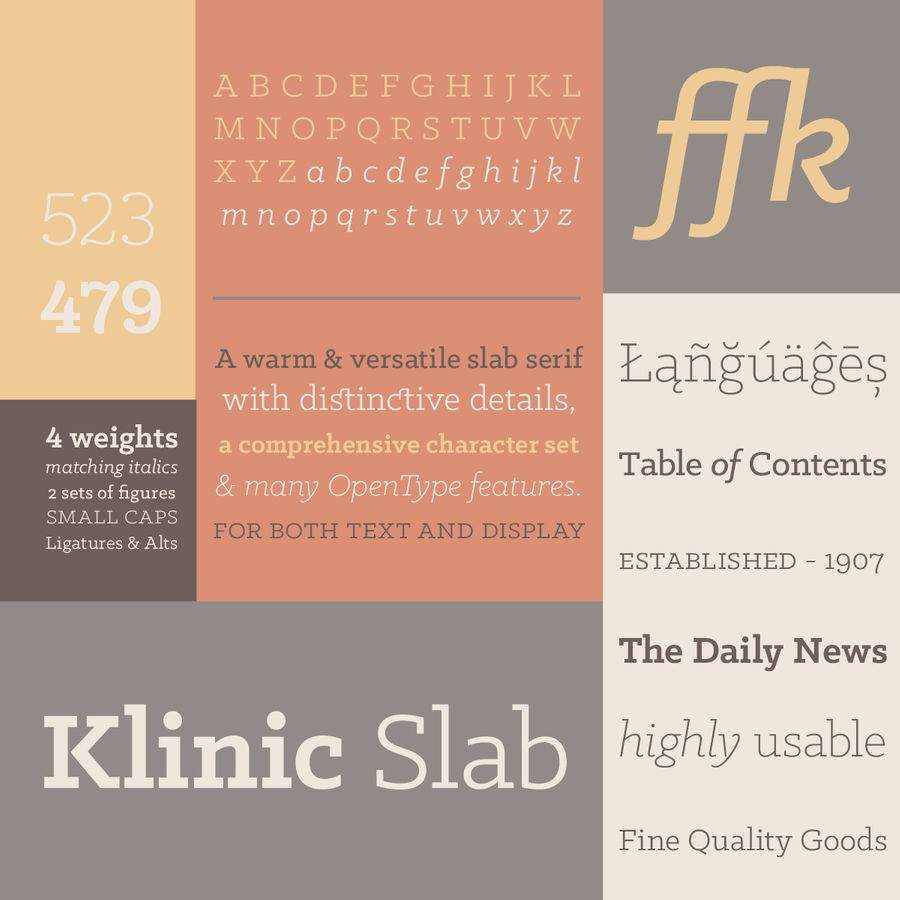
2. Fulbo
3. Misto
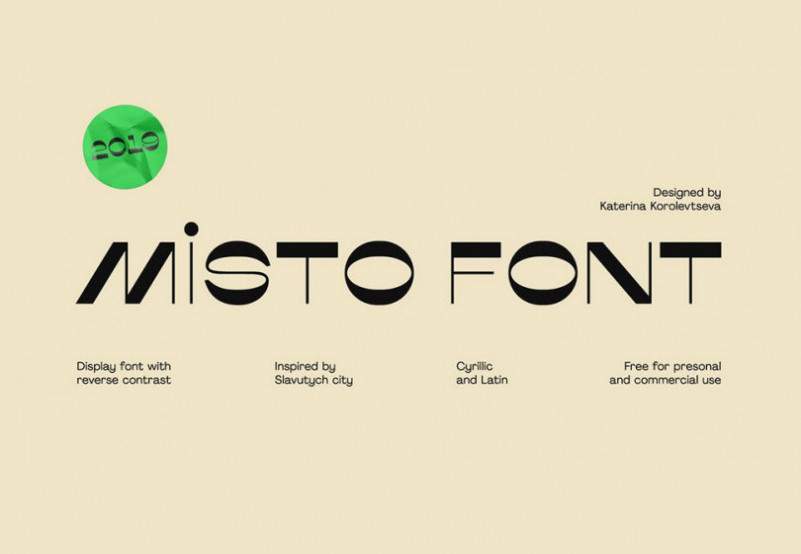
4. Chappa
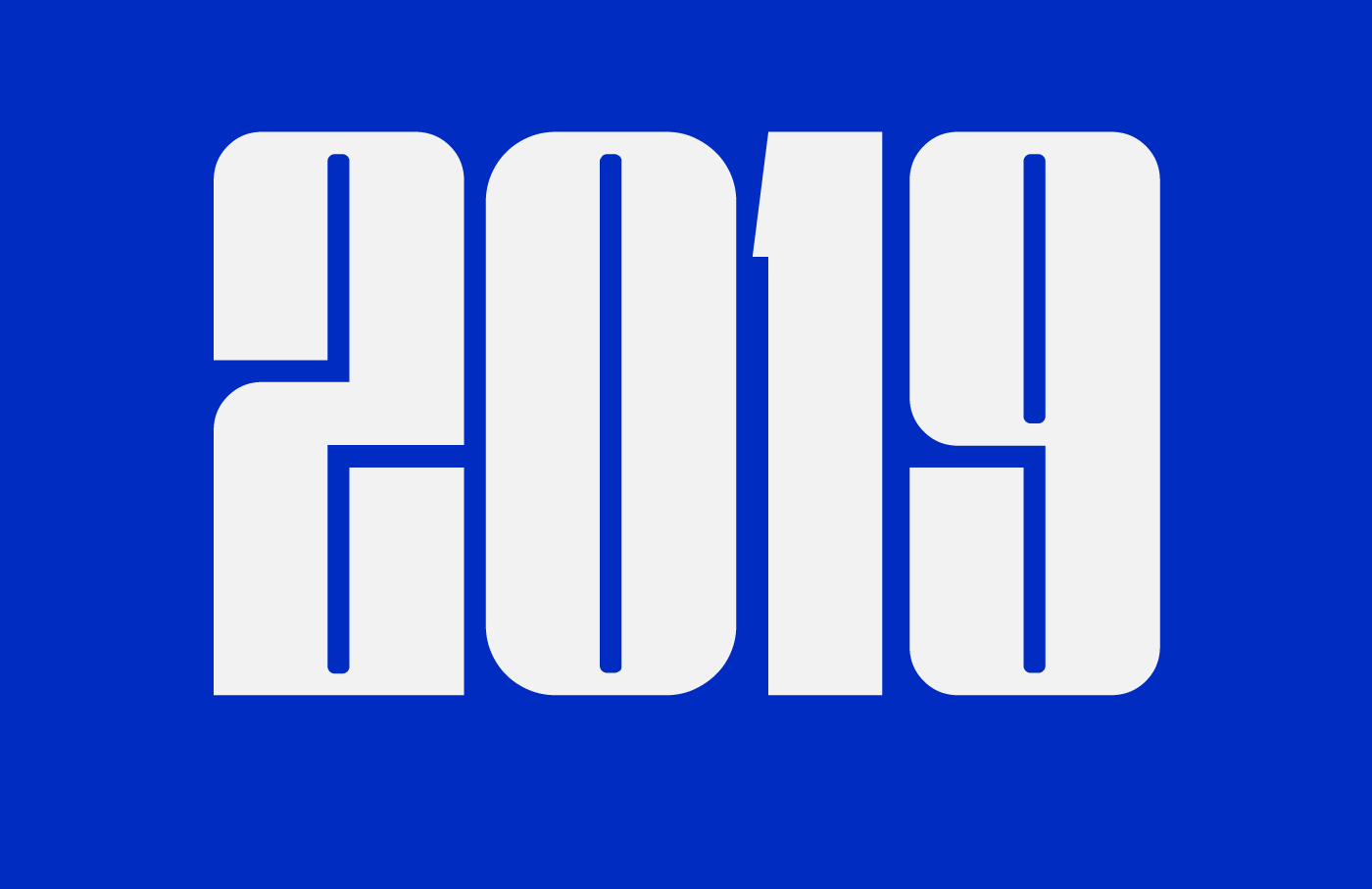
5. Borough Grotesk
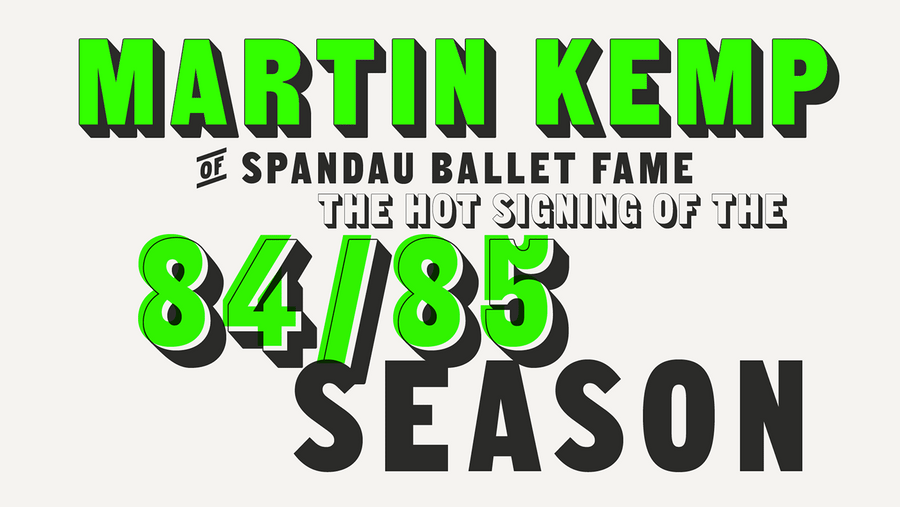
6. Lazar 1389
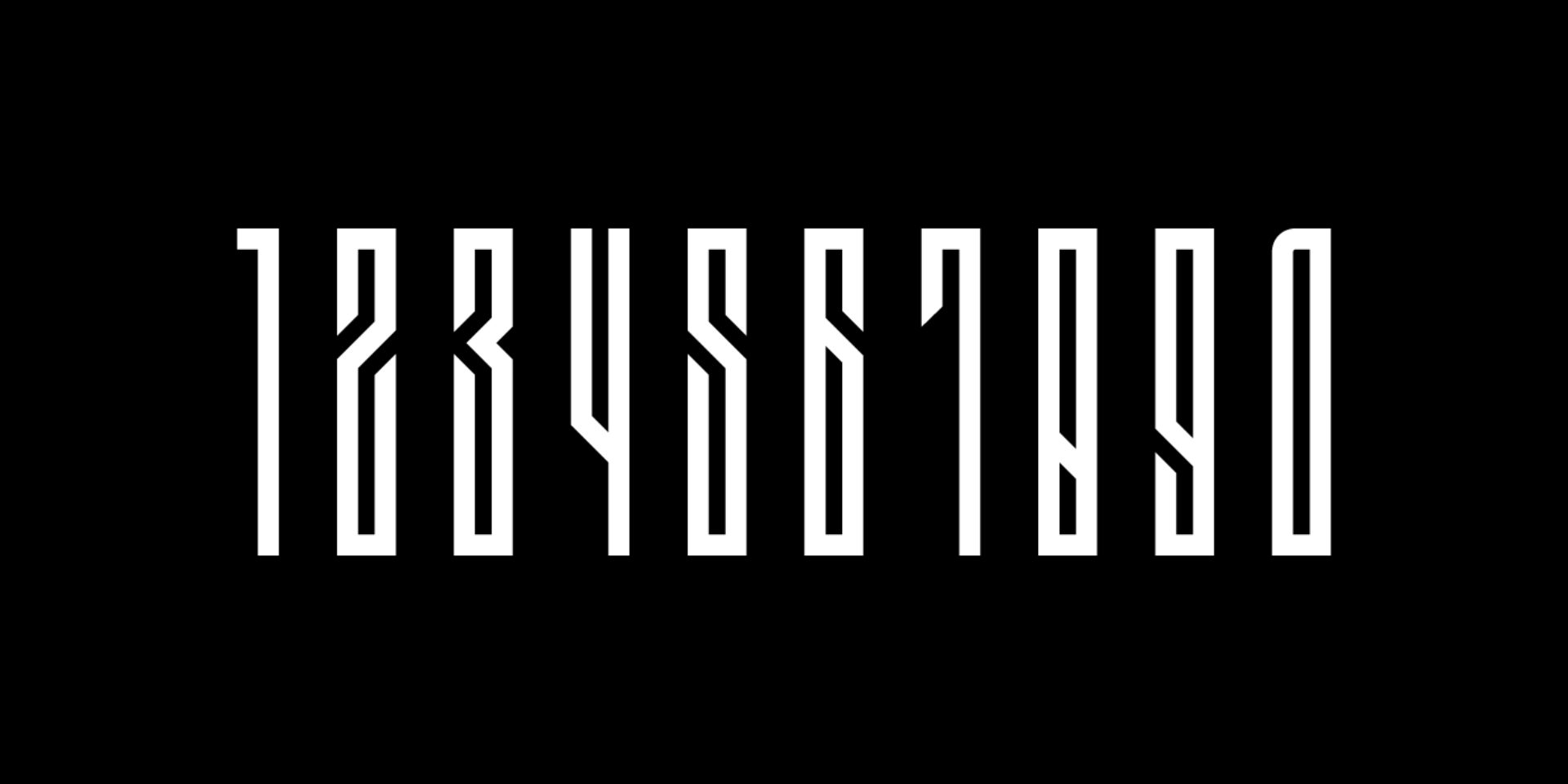
7. College Elegant
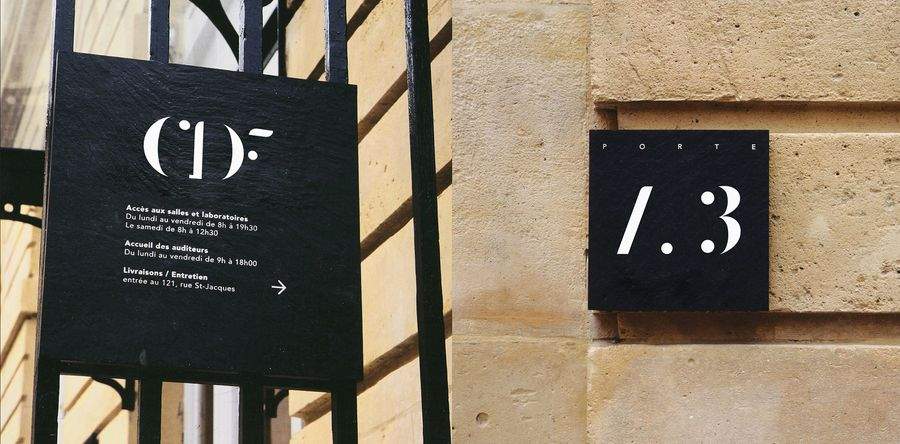
8. Technique Sans Serif
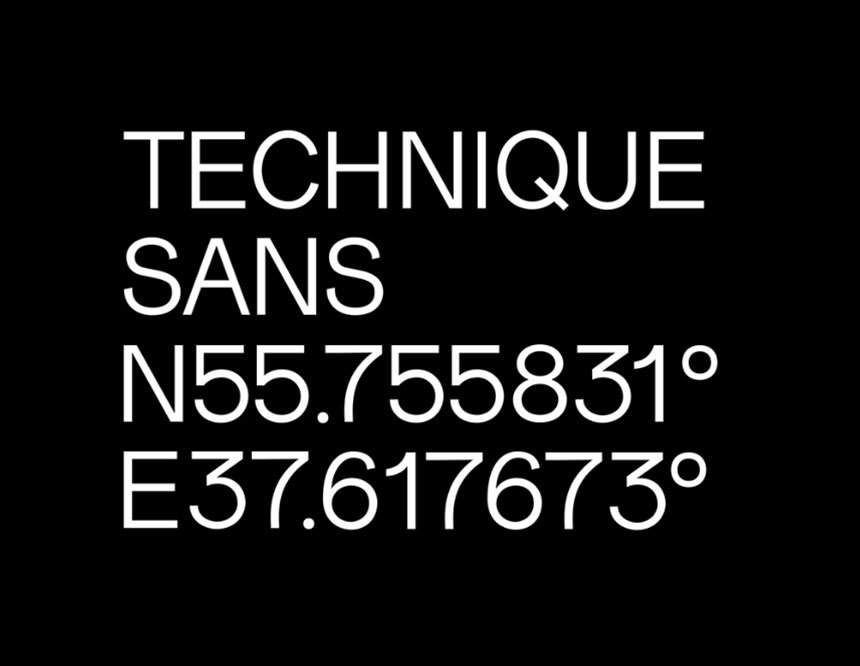
9. Herbert Regular
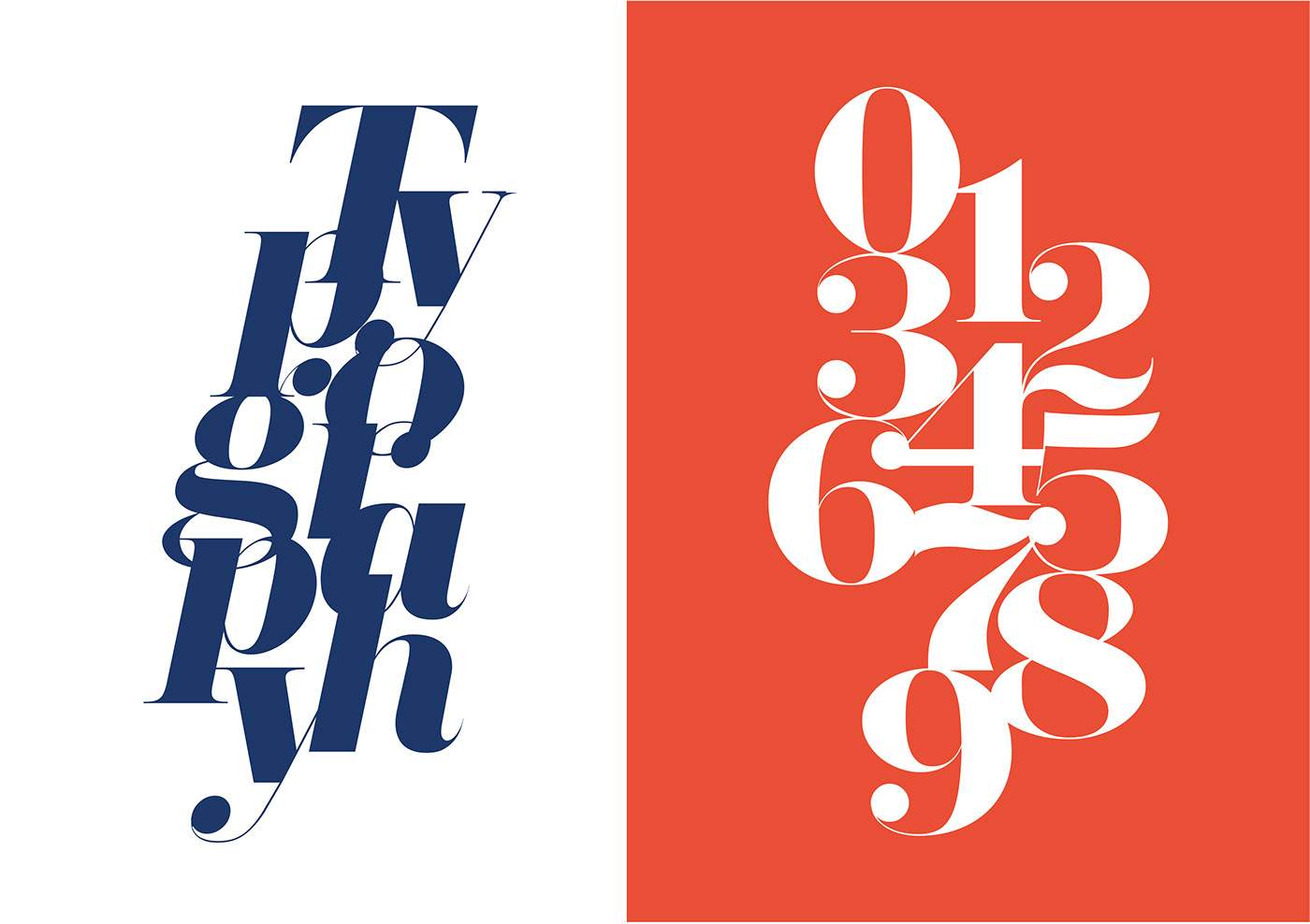
10. Didone Room Numbers Display
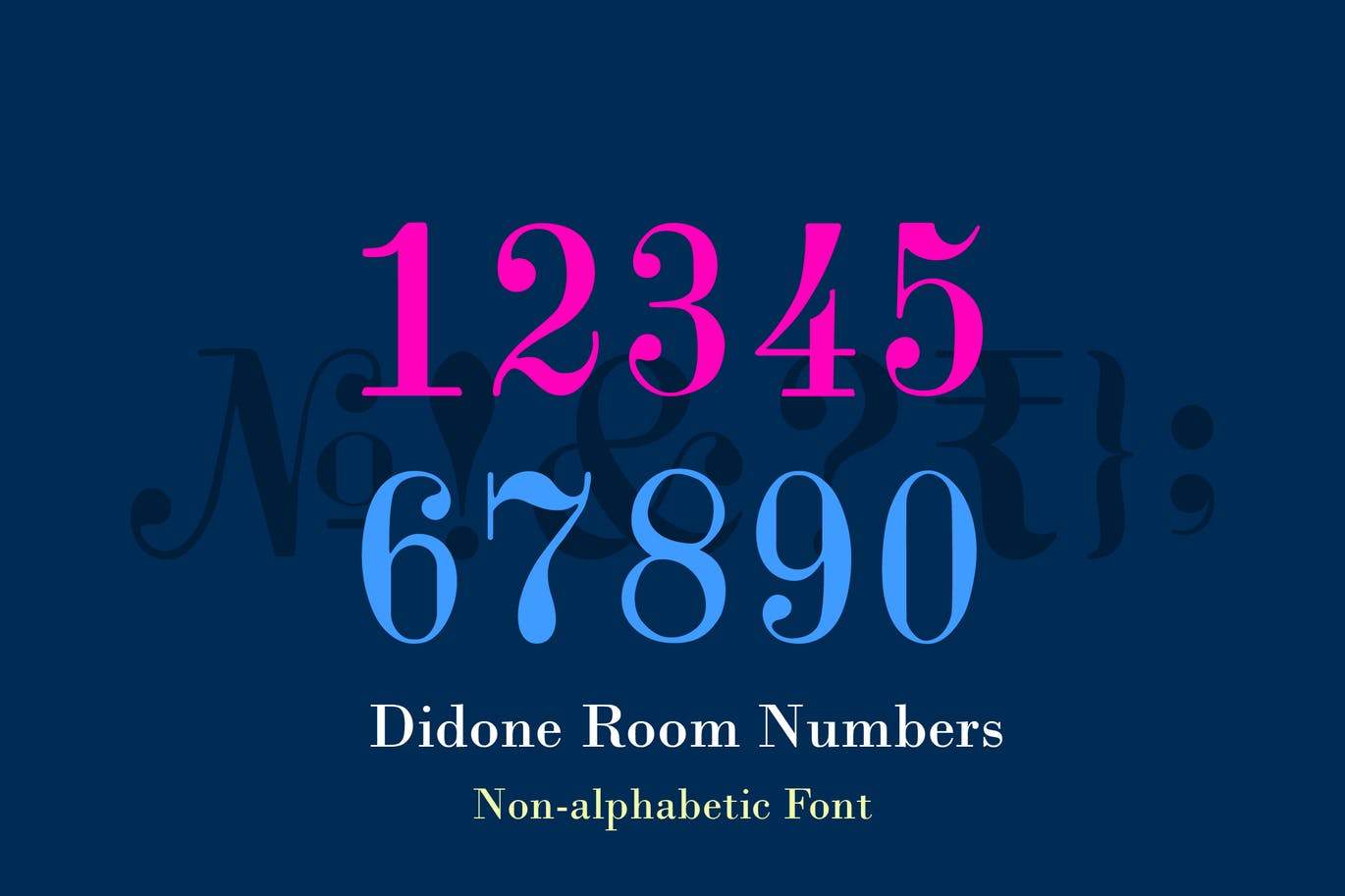
11. Arber
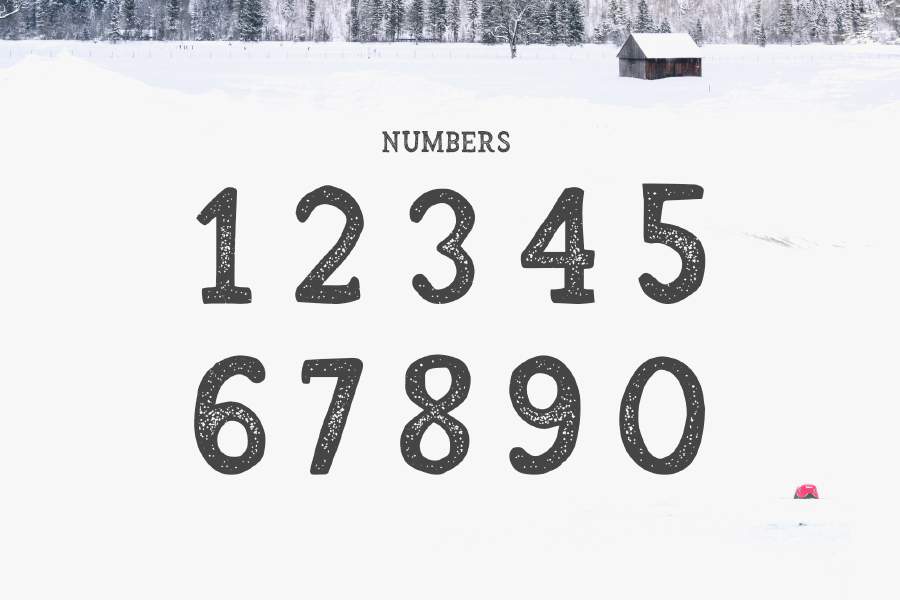
12. Jersey M54
13. Pompadour Numerals
14. Hand-Drawn Numbers by Mandee Thomas
15. Monoton